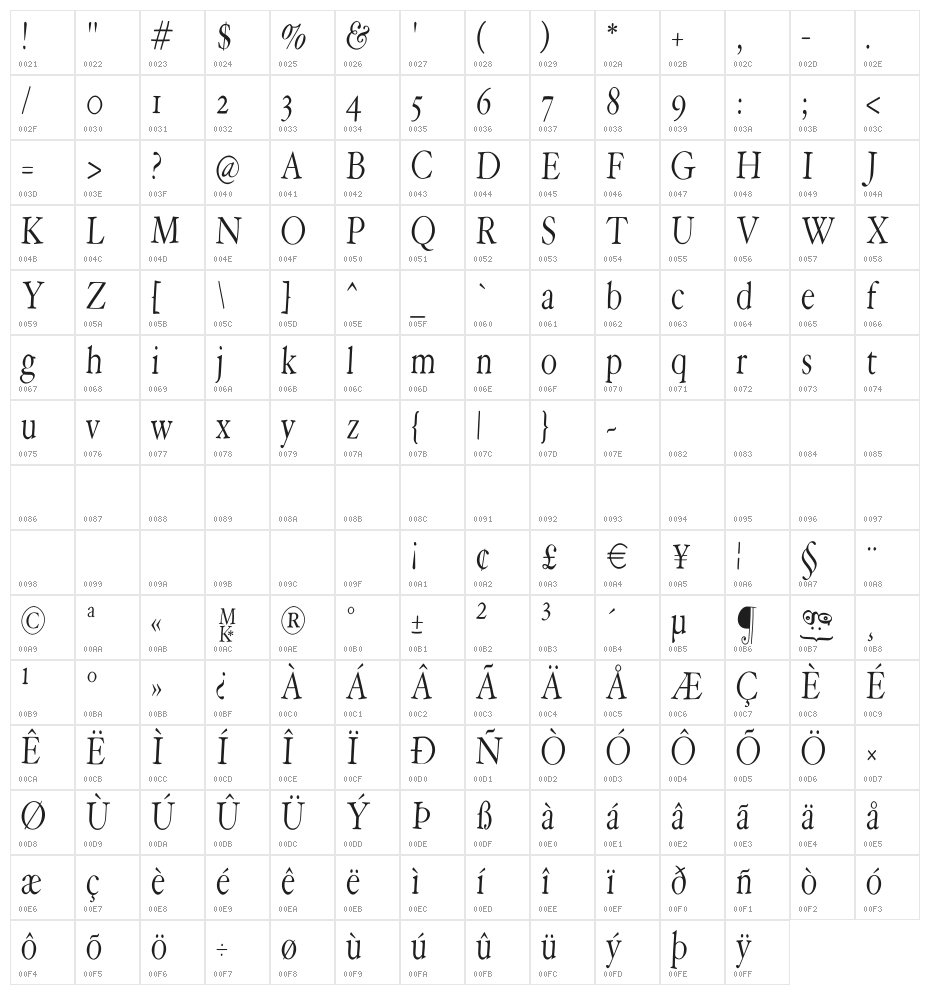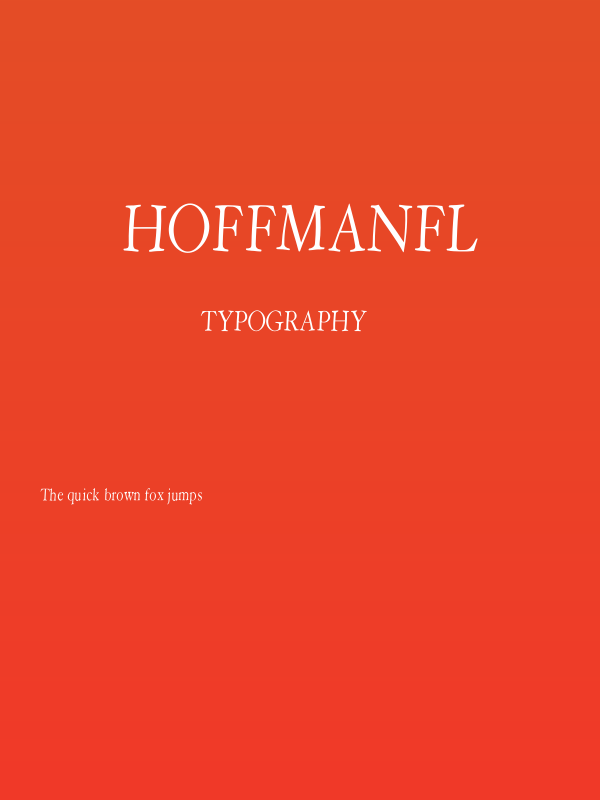
HoffmanFL Font
✎ Serif
| 整体风格 | Classic |
| 使用场景 | Headlines, Body text, Logos |
| 推荐项目 | This font is perfect for projects that require a touch of elegance and sophistication, such as wedding invitations, formal event programs, luxury brand logos, and editorial design. |